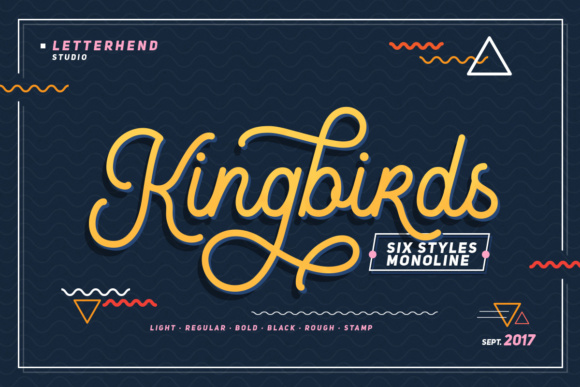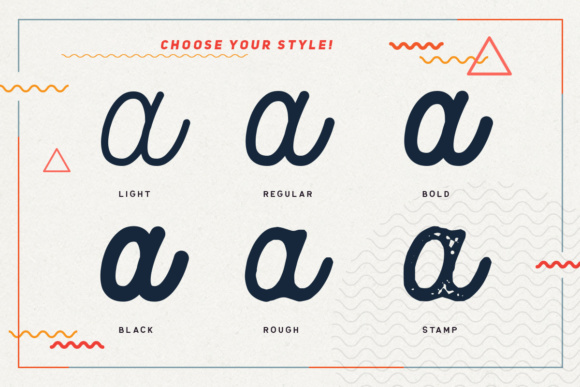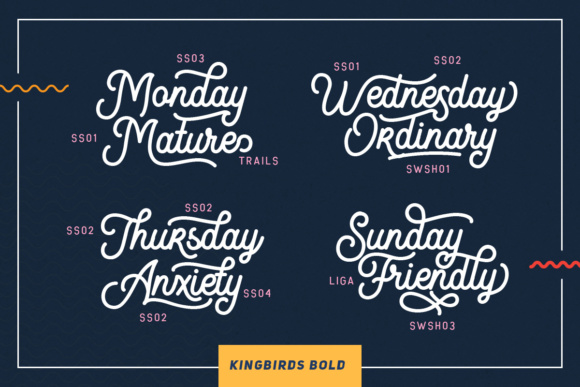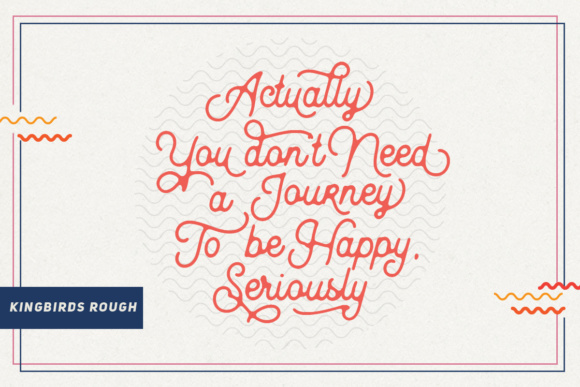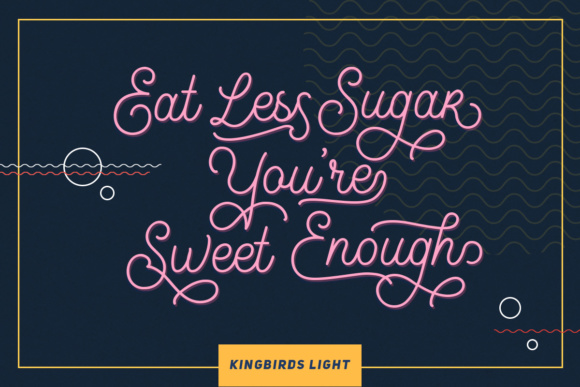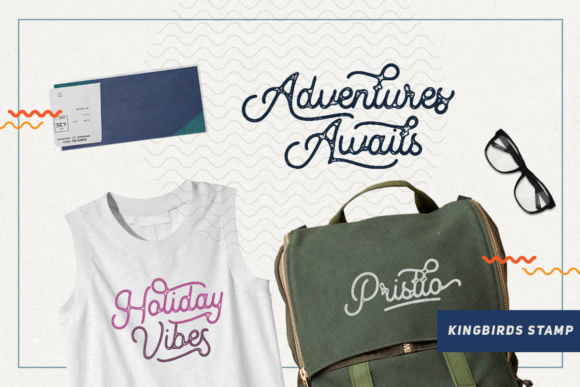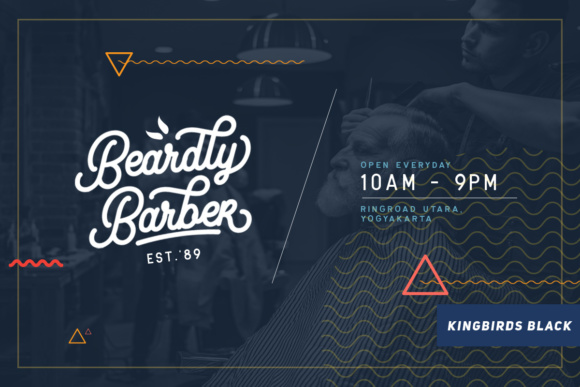
Kingbirds Script Font
About Kingbirds Script Font
Introducing Kingbirds! Tired of the ordinary monoline script? Now we are proudly presenting you a one-of-a-kind monoline script that has six styles of monoline which will satisfy all your design needs. Playful theme? Elegant theme? Vintage theme? you name it!